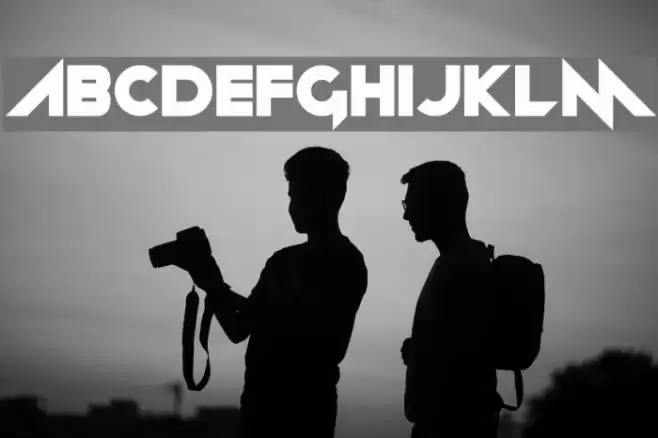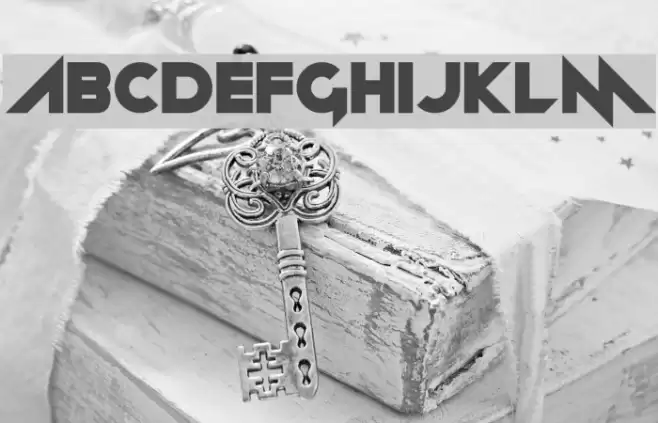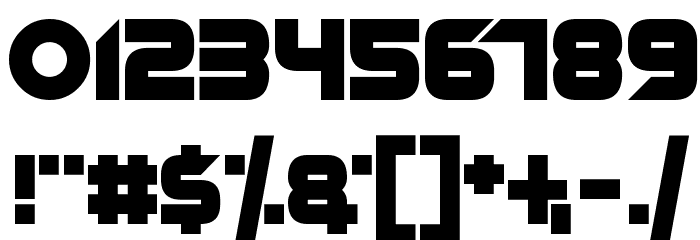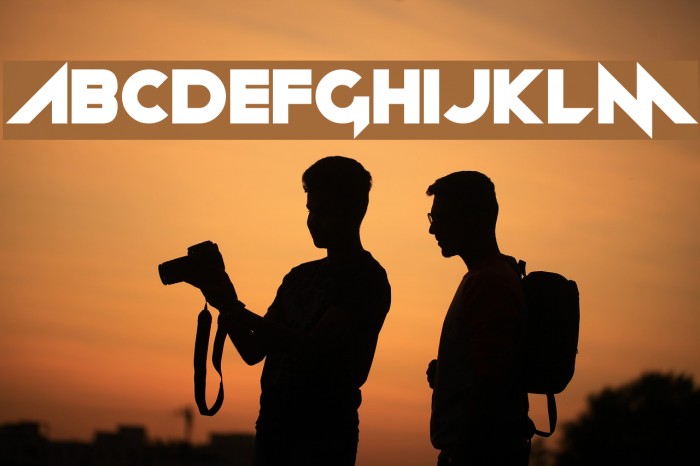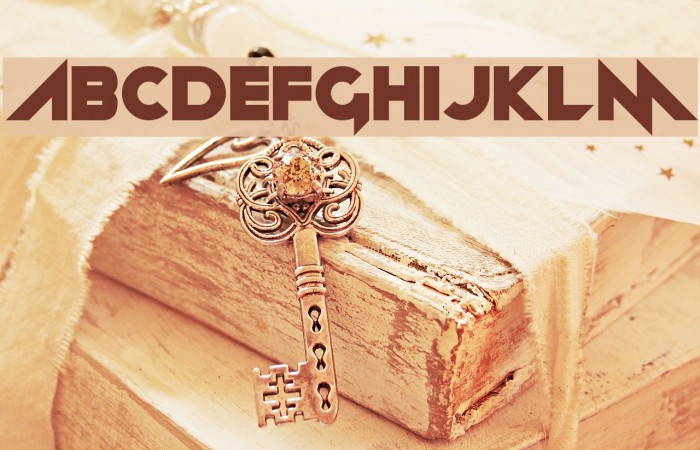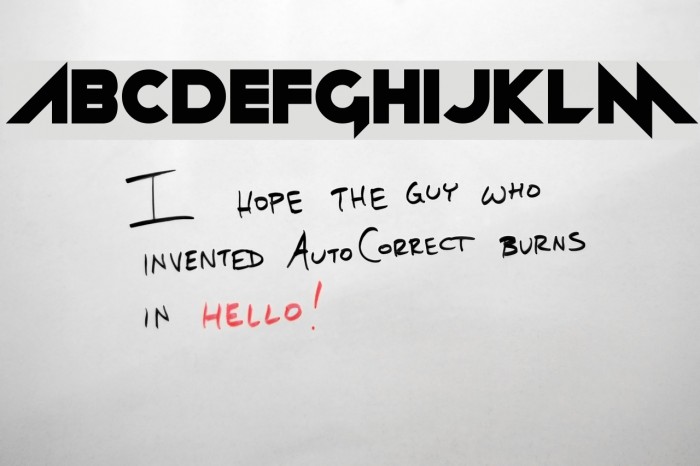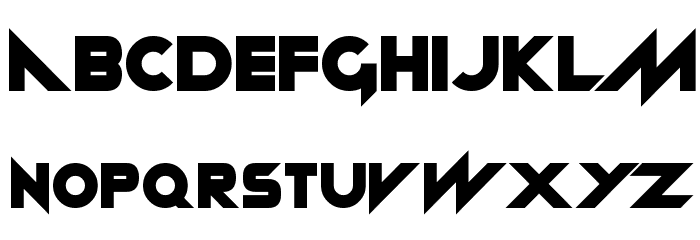
Neon machine Font
Neon machine Description
This font features a bold and futuristic design with sharp angles and geometric shapes. The uppercase letters are characterized by their strong, angular lines, giving them a dynamic and aggressive appearance. The lowercase letters maintain the same boldness, ensuring consistency across the font. Numbers are equally bold, with a modern, digital feel that complements the overall style. Special characters are designed to match the angular and geometric theme, making them stand out. This font is ideal for projects that require a modern and edgy look, such as technology-related branding, video game titles, or sci-fi themed designs.
A bold, futuristic font with sharp angles and geometric shapes from Uncategorized fonts.
- Proposed Projects: Ideal for technology branding, video game titles, sci-fi themes, and modern posters.